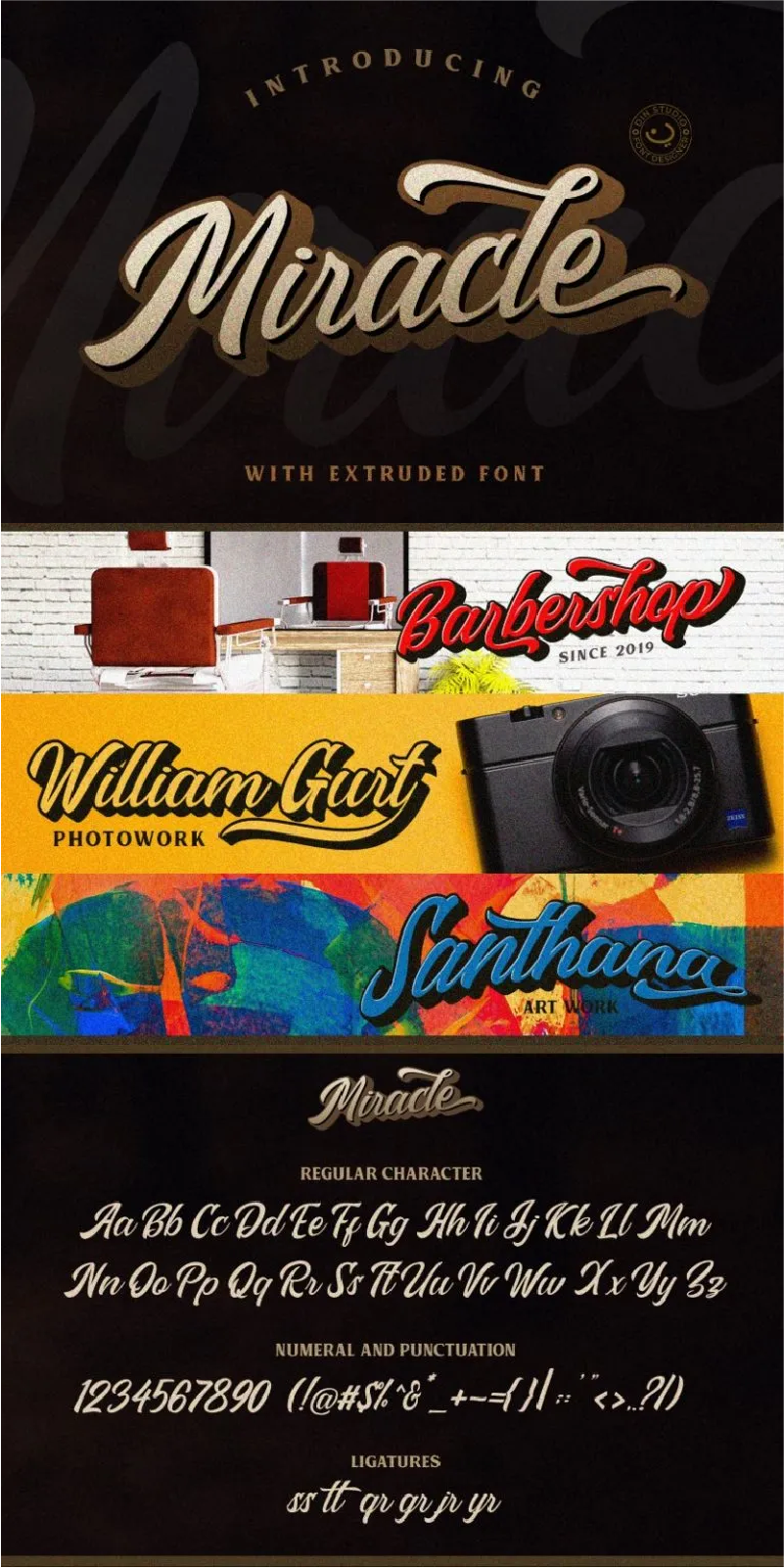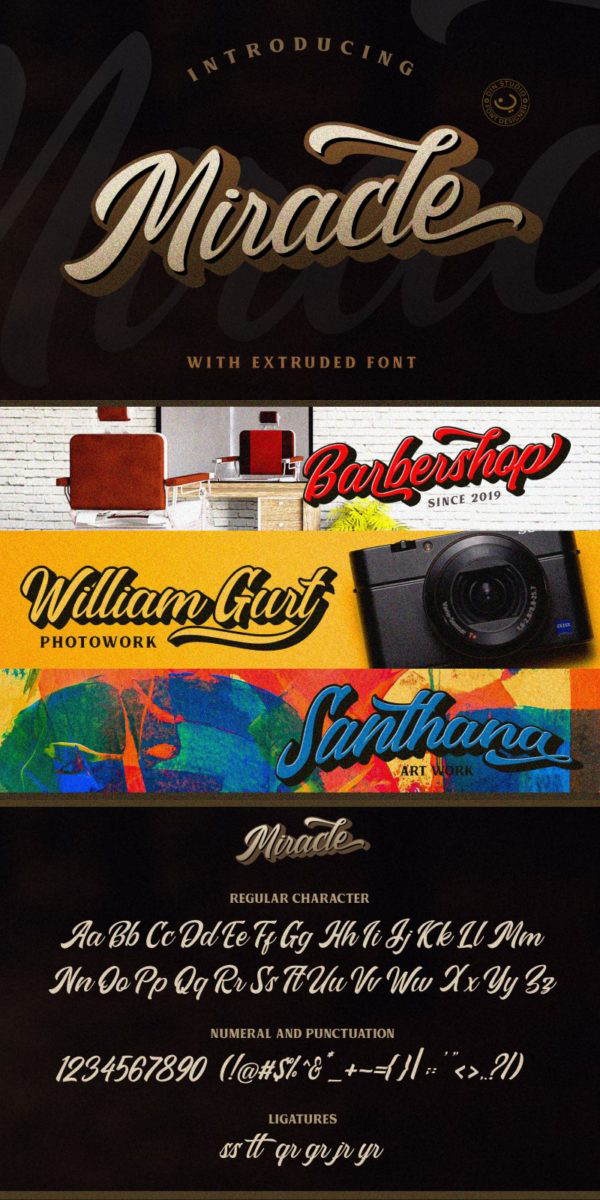
Miracle Font
About Miracle
Miracle Script is a modern logotype. It’s suitable for T-Shirt printing, name card design, branding projects, product packaging, quotes, logos, book covers and many other lovely projects of yours. Miracle Script is featured with extruded font so it will make your design look powerful. See the previews above to get some inspiration on how you can use them. Happy Designing!
Features: ·
-Stylistic Alternates and Ligatures
-Character Set A-Z
-Numerals and Punctuation (OpenType Standard)
-Accents (Multilingual Characters) PUA Encoded